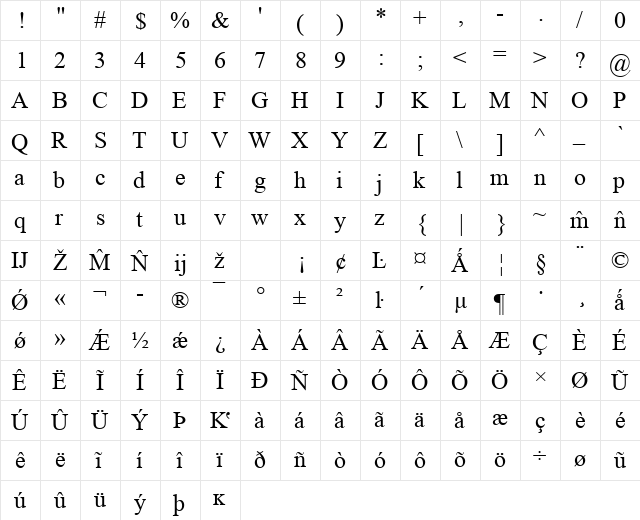
Times NR Greenlandic Regular
Design Context for Times NR Greenlandic Typeface
Times NR Greenlandic is a composed and adaptable typeface that performs quietly and consistently across a wide range of design contexts.